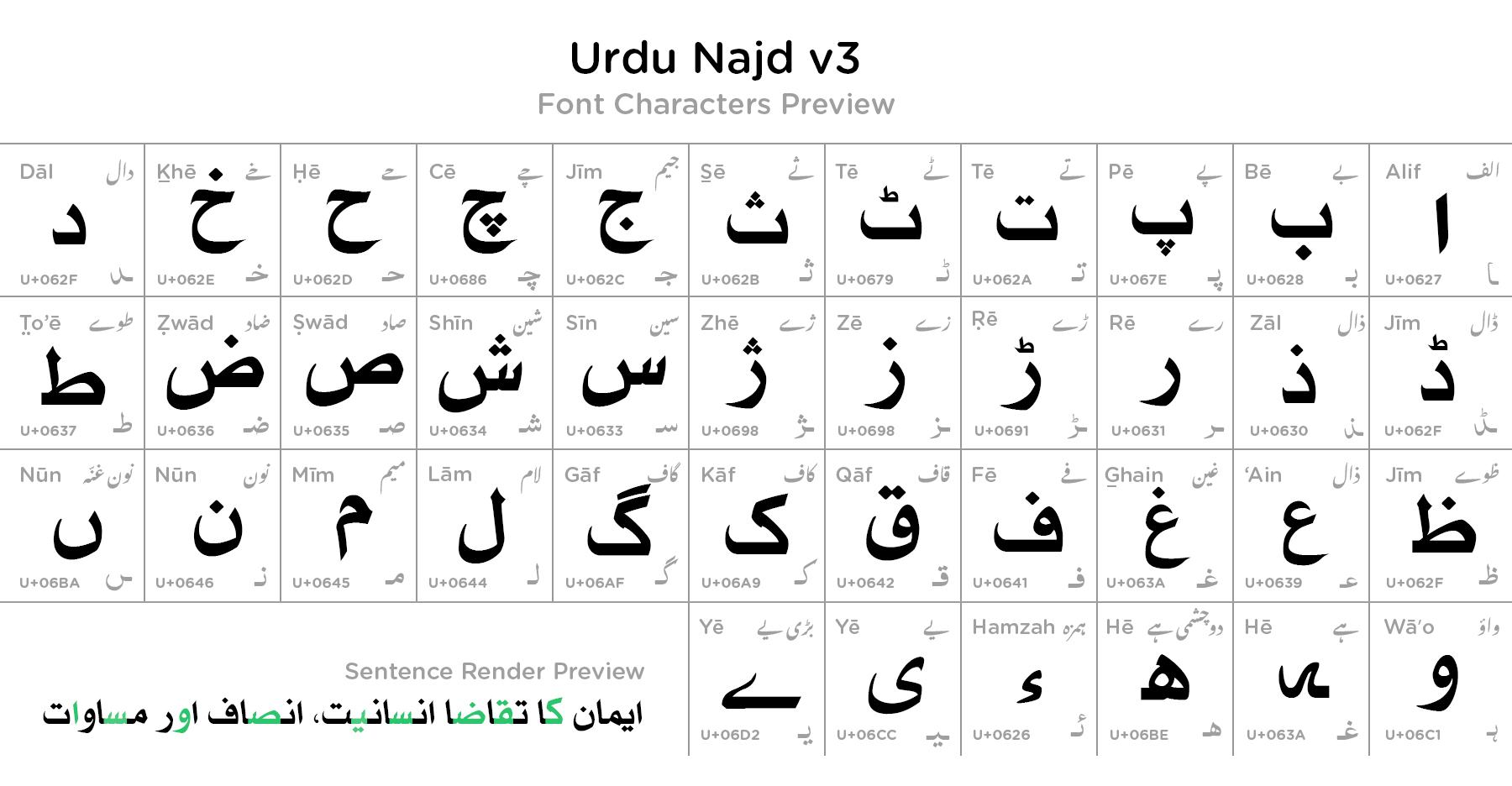
Urdu Najd V3 is a semi-bold Urdu font designed by Mahboob Alam. With its dynamic thickness and horizontal emphasis, this font offers a clear and simple outlook suitable for various design purposes. Inspired by Naskh’s script and modified to meet present-day needs, the font features 400 characters and 395 glyphs, supporting Arabic, Latin, Urdu, and more languages. Its medium thickness allows it to be used for literary purposes as well as branding, advertising, Quran writing, and literary writings in books.
Despite its thick and dynamic strokes, the font maintains high legibility thanks to its clear and simple letterforms. Its formal and geometric look, equal spacing, and soft rounded curves give it a professional appearance suitable for a wide range of applications. Released on November 14, 2019, in TrueType format, Urdu Najd V3 is compatible with various Unicode blocks, including Basic Latin, Arabic, General Punctuation, Mathematical Operators, and more. Whether used for branding, advertising, or literary purposes, this font offers a versatile solution for conveying your message effectively in both digital and print media.